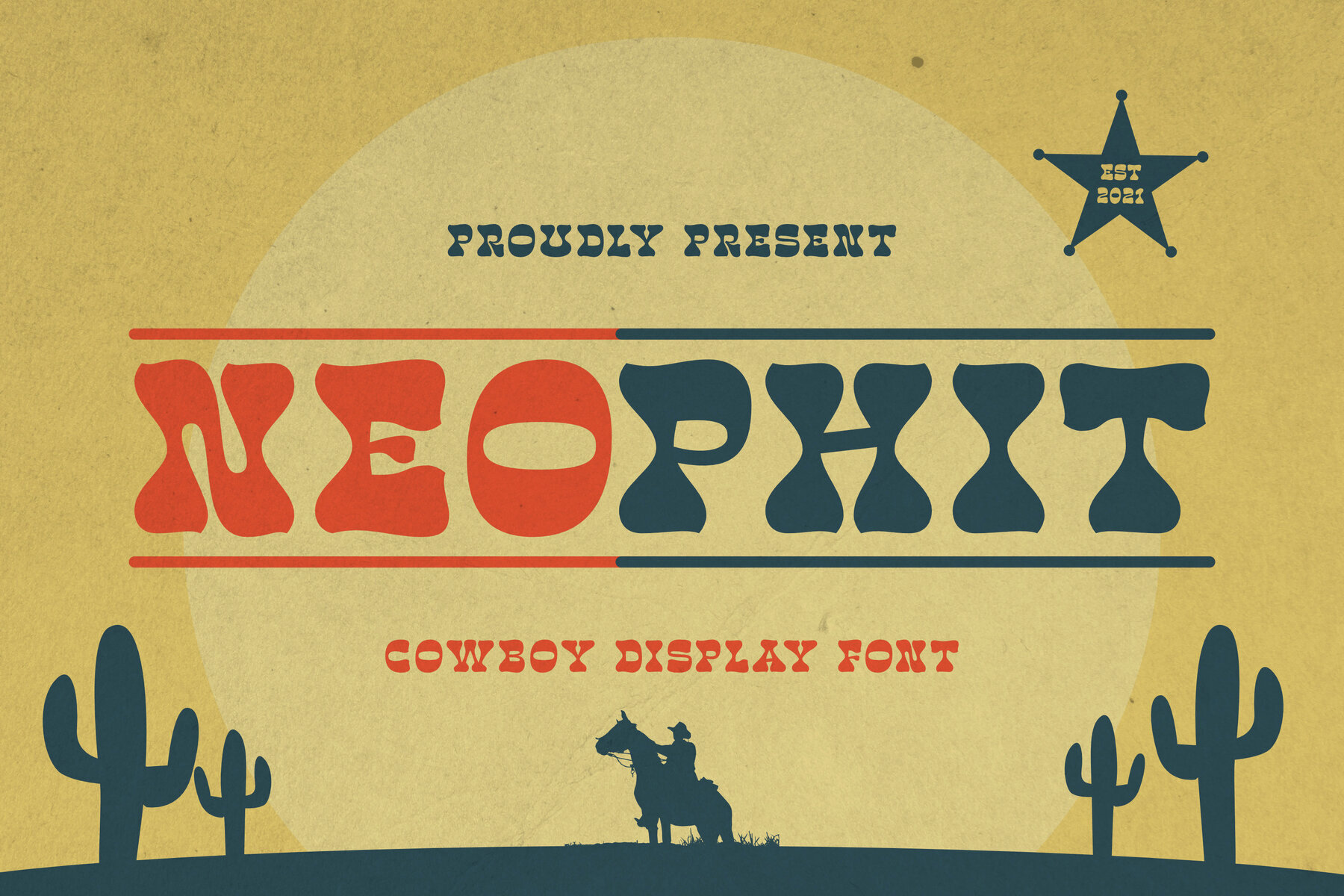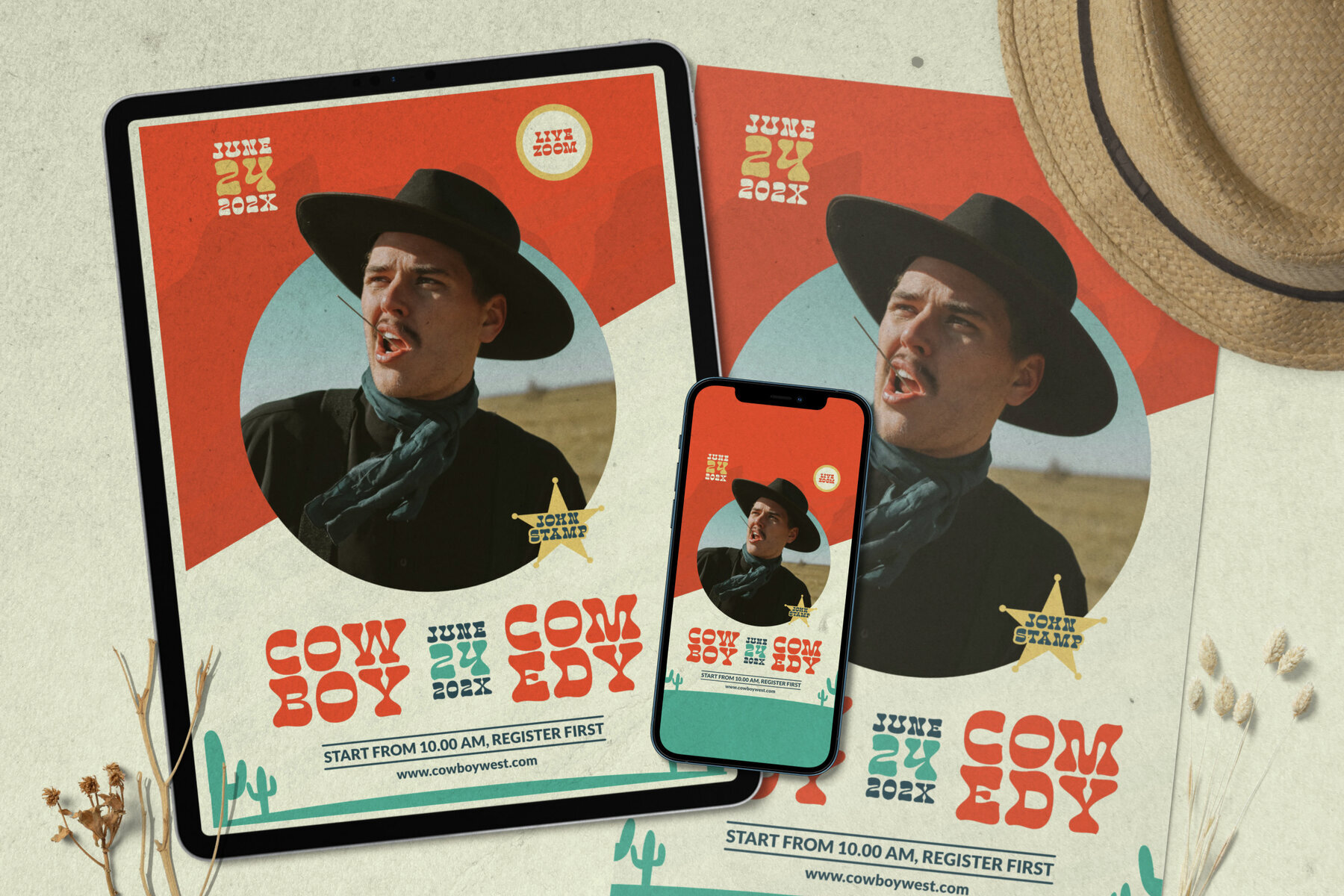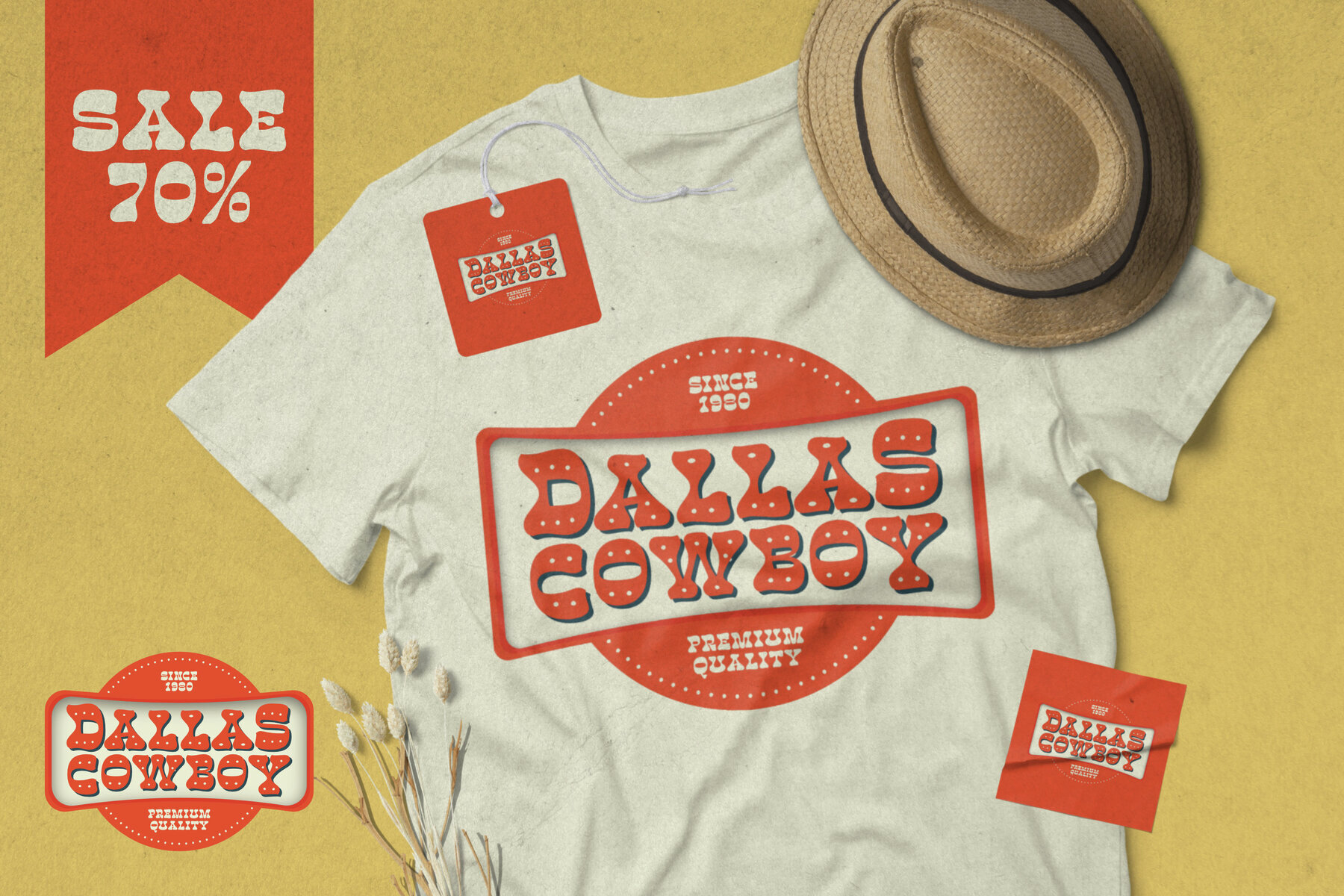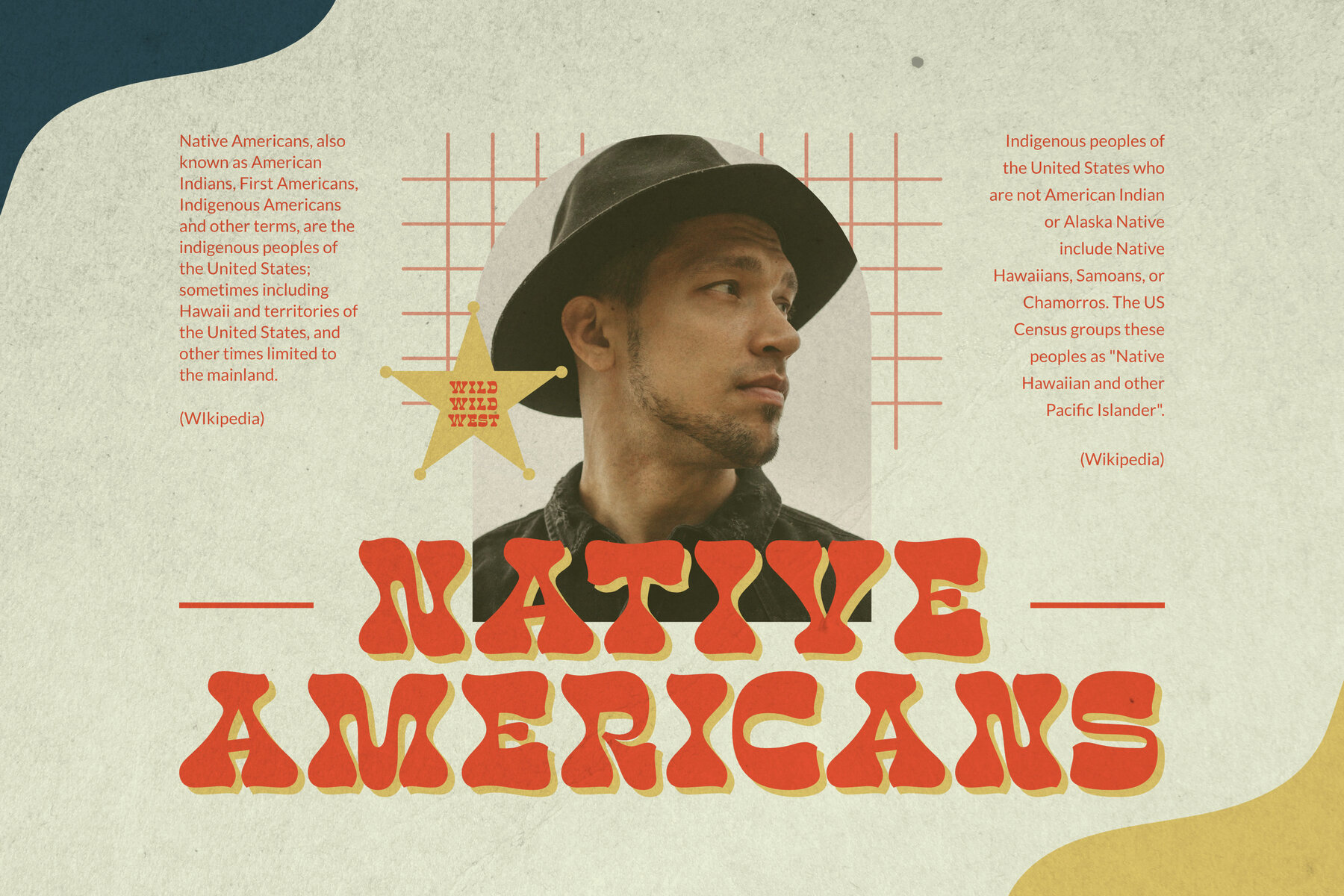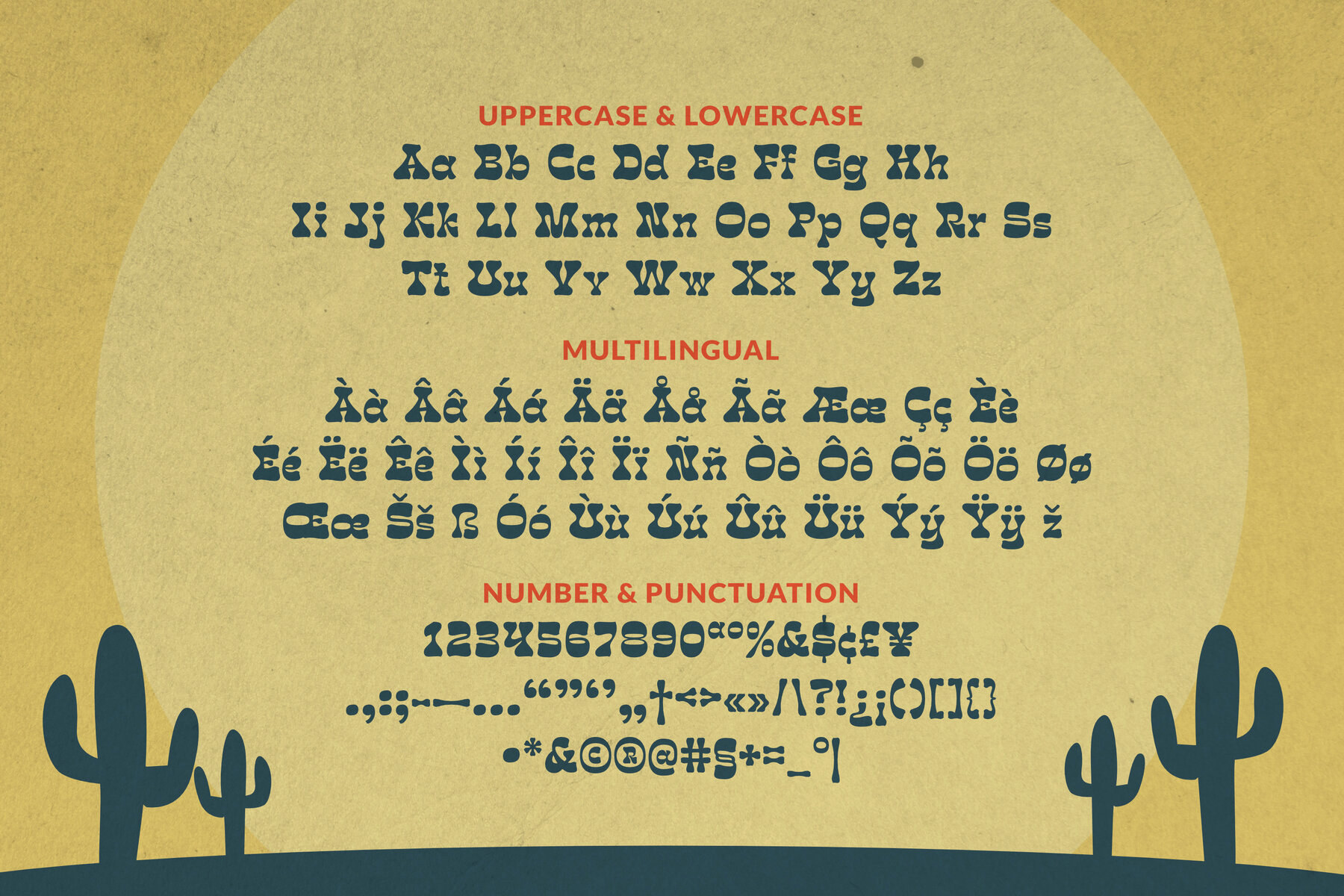
Neophit Font
Neophit Regular
Neophit captures the spirit of the 1970s with a bold, Western edge. Its chunky letterforms and exaggerated, flowing curves deliver a sense of playful nostalgia balanced by a refreshingly modern twist. The bottom-heavy weight and softly rounded edges lend each character a liquid-like quality, making text appear friendly yet confident. Each letter in Neophit features subtle, wavy lines that create movement along the baseline, resulting in a dynamic and organic rhythm. Designed for visual impact, this font excels in eye-catching headlines, distinctive logos, and branding that demands attention. Neophit’s approachable style makes it well-suited for music festival posters, retro-themed merchandise, coffee shop branding, and bold social media graphics. With its unique character and substantial presence, Neophit introduces a compelling mix of nostalgia and Western cool to any project.Neophit – Cowboy Groovy Display Font